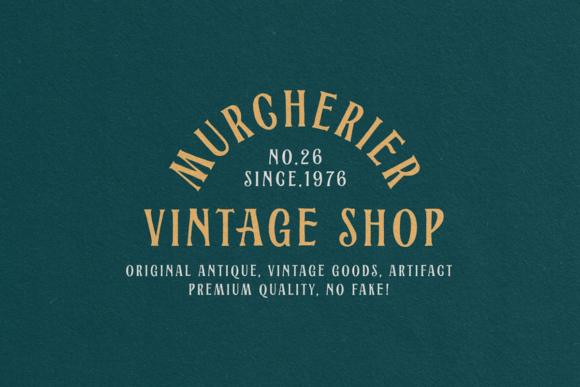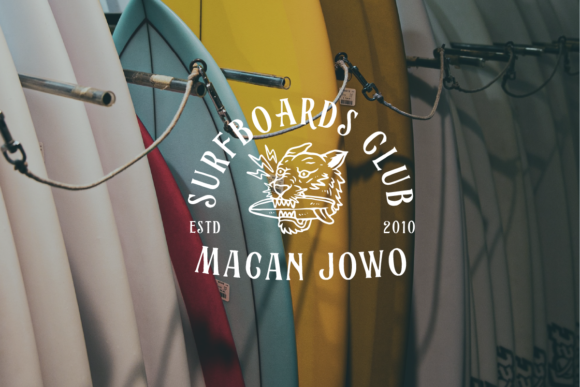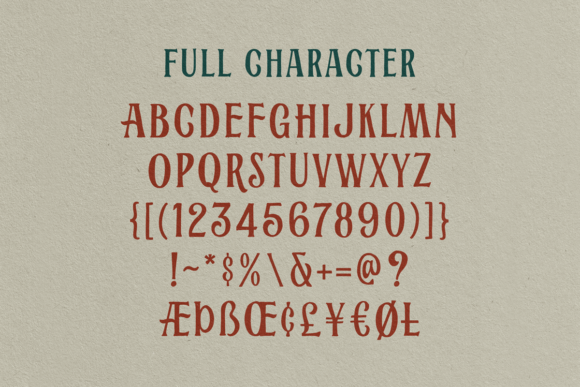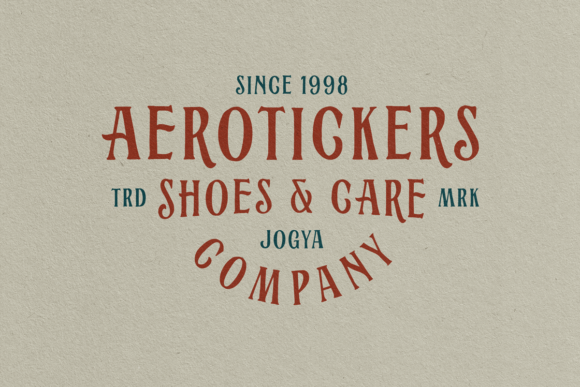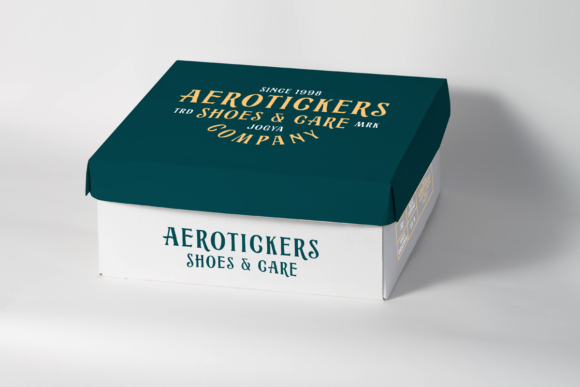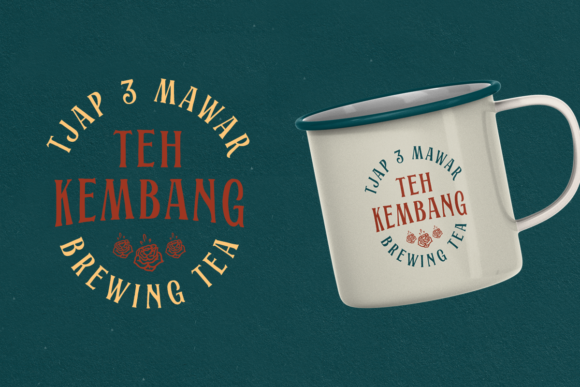
The Nostalgic Charm of Alburgone Font: A Designer’s Delight
I still remember the design project that led me to discover Alburgone Font. I was working on a vintage-themed branding campaign for a client, and I was struggling to find the perfect font that would evoke the nostalgic feel we were going for. That’s when I stumbled upon Alburgone, and it was love at first sight! 💕
Alburgone feels playfully nostalgic and delivers an incredible vintage aesthetic. This display font is perfect for adding that special old-style touch to any design idea you can think of! In this article, I’ll share my experience with Alburgone, its features, and how to make the most of it in your designs.
An Honest Review of Alburgone Font
What I Love About Alburgone ✨
• Its unique vintage aesthetic that adds a touch of nostalgia to any design ✅
• The wide range of glyphs and stylistic alternates that allow for endless creativity 🌈
• The font’s playfulness and charm, making it perfect for branding and advertising projects 😊
• Its versatility, suitable for various design applications, from posters to packaging 📦
While Alburgone is an amazing font, there are a few things to keep in mind:
• It may not be the best choice for body text, as it’s primarily designed for display purposes ⚠️
• Some users might find the font a bit too ornate or over-the-top for certain projects 🤔
The Backstory of Alburgone Font
While the origins of Alburgone Font might be shrouded in mystery, it’s clear that its designer was inspired by the nostalgic charm of vintage typography. Imagine a designer who grew up surrounded by antique books, vintage posters, and classic cars, with a passion for bringing the past to life through typography. This font is a love letter to the golden age of design, with its intricate details and playful flair.
Q: What is Alburgone Font best used for?
A: Alburgone Font is perfect for display purposes, such as headlines, titles, and branding projects. Its unique vintage aesthetic makes it ideal for adding a touch of nostalgia to your designs.
Q: Is Alburgone Font suitable for body text?
A: While Alburgone Font is beautiful, it’s primarily designed for display purposes. For body text, you may want to choose a more legible font to ensure readability.